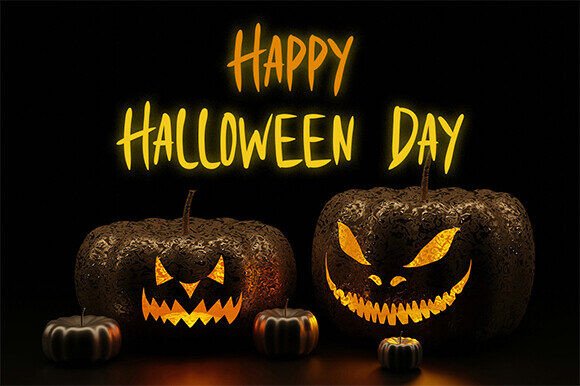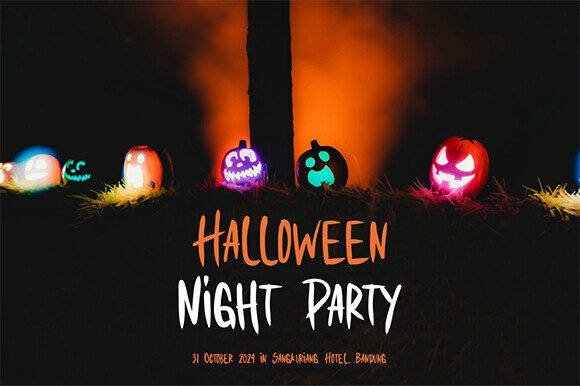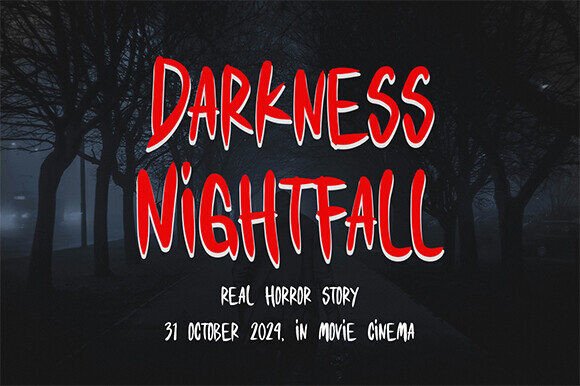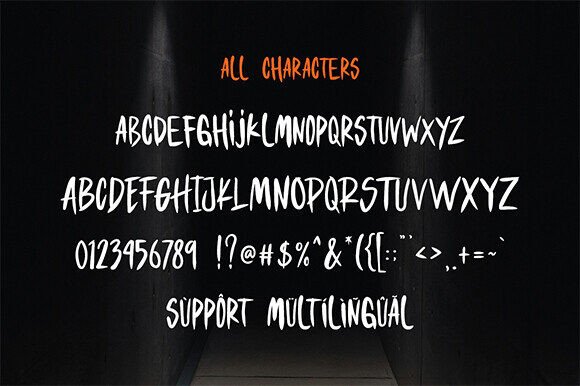
Introduction to Halloween Whispers Font
As a designer, there’s nothing quite like the thrill of working on a creative project that sparks your imagination. For many of us, that spark is ignited on Halloween night, when the air is crisp, the shadows are long, and the atmosphere is electric. It’s a time when creativity knows no bounds, and the possibilities are endless. And that’s exactly why I’m excited to share with you a design resource that’s sure to cast a spell on your next project: the hauntingly beautiful Halloween Whispers Font.
This spine-chilling font is more than just a design element – it’s an experience. With its ghostly curves and shadowy edges, it captures the eerie essence of Halloween night, evoking the whispers of haunted spirits and the creaking of old, abandoned houses. Whether you’re working on a high-quality project or simply looking for a unique design element, the Halloween Whispers Font is a valuable resource that’s sure to deliver. And the best part? It’s available for free download, complete with a transparent background, making it easy to integrate into your design.
Key Features of Halloween Whispers Font
• Unique, spooky design perfect for creative projects and Halloween-themed designs
• High-quality font with a transparent background for easy customization
• Supports a wide range of languages and characters, making it a versatile design resource
• Designed with a high resolution of 300 DPI for crisp and clear text display
• Perfect for adding a spooky touch to designs, invitations, and other creative projects
Honest Review: Halloween Whispers Font
I recently had the chance to work with the Halloween Whispers Font for a spooky-themed creative project, and I’m excited to share my honest review.
• ✨ The font’s high-quality design is perfect for adding a touch of eeriness to any design project.
• ✨ The transparent background option allows for seamless integration with various design elements.
• ⚠️ Some characters may require manual spacing to ensure proper alignment, which can be time-consuming.
Overall, I’m impressed with the Halloween Whispers Font’s unique design and versatility. While it may have some limitations, it’s a great addition to any designer’s toolkit, especially for spooky-themed projects or Halloween-inspired designs.
Halloween Whispers Font
To get the most out of the Halloween Whispers Font, try using it on a transparent background to create a spooky ghostly effect. You can also experiment with different font sizes and styles to create a sense of depth and dimension.
The Halloween Whispers Font is perfect for creating spooky invitations, party decorations, and social media graphics. It’s also great for adding a touch of whimsy to your creative project, such as a children’s book or a horror-themed video game.